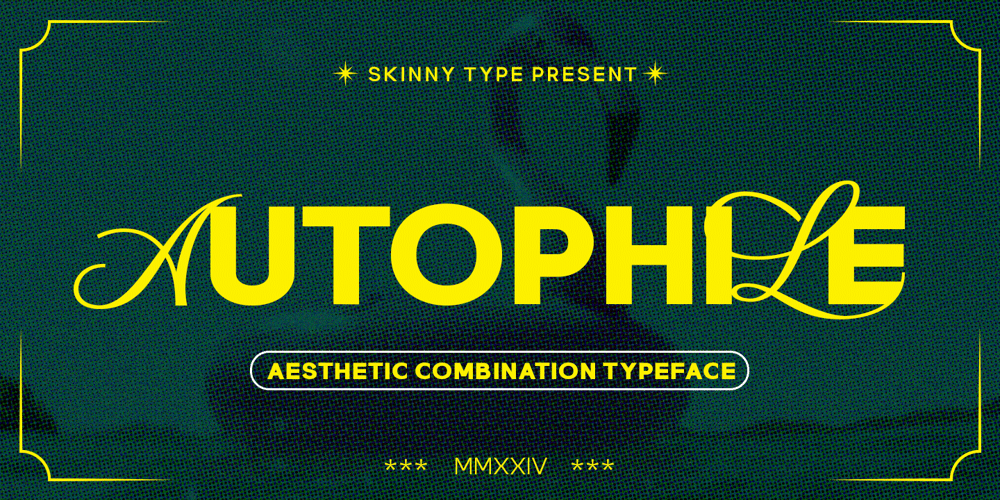
Autophile Font Family was designed by Muhajir and published by Skinny Type. Autophile contains 2 styles and family package options. Autophile is a completely new typeface, unique & full of impact. I loved it so much that I wanted to make it super personal, which is why Autophile is in the name. This font family includes 2 font options, regular, outline. The main font is a combination of sans serif and script, which in regular and outline forms looks cool, chic & fashionably elegant. Each font version is equipped with uppercase, lowercase, numbers, punchuation, ligatures, and alternates.It also includes full language support, punctuation, numbers, and detailed instructions on how to use alternative letters in most applications on your computer.I invite you to take a look at the preview images, and I hope you’ll be immersed in my vision for this creative typeface that, I’m sure, will work for all kinds of interesting projects you might work on this year.Each of these fonts includes all sans serif letters & uppercase alternate script optionsNumbers & PunctuationLanguage Support For Each Option – Regular, Outline.Happy creating everyone!